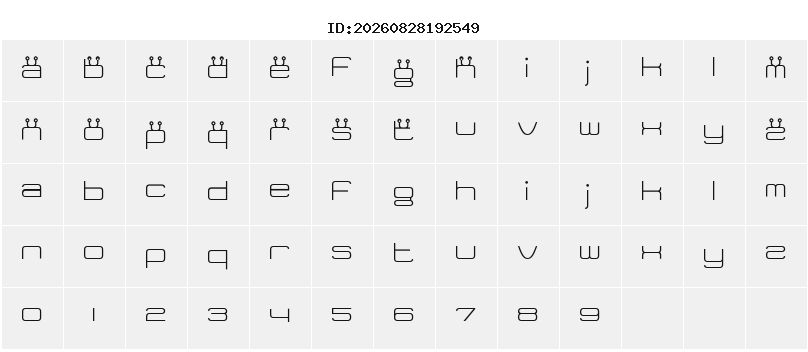
Tidy Curve TV Preview
• Font Name: Tidy Curve TV
• Full Font Name: Tidy Curve TV
About Tidy Curve TV.ttf
Tidy Curve TV.ttf is a modern, elegant sans-serif font designed for ultimate readability and visual harmony. Perfect for branding, headlines, web design, and print materials.